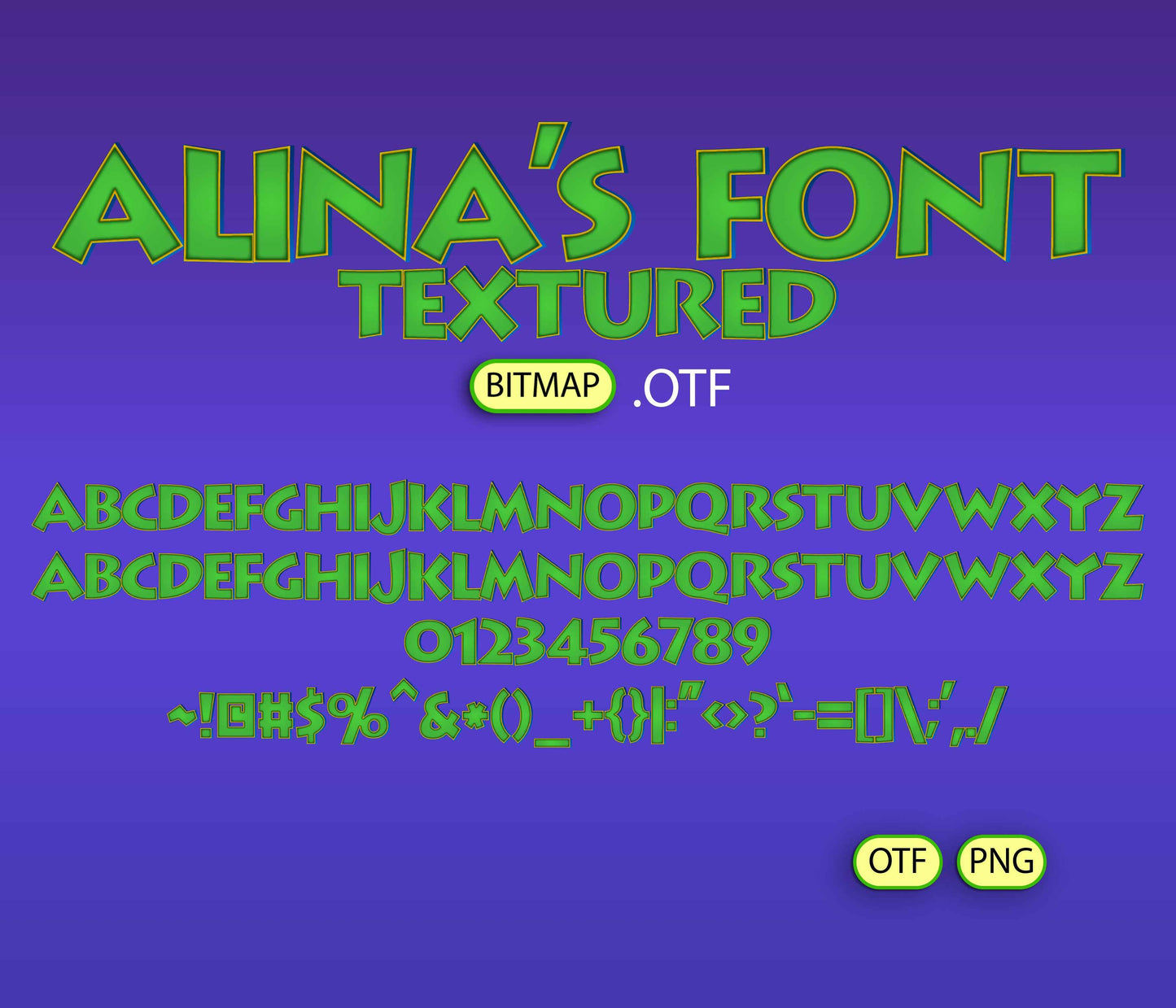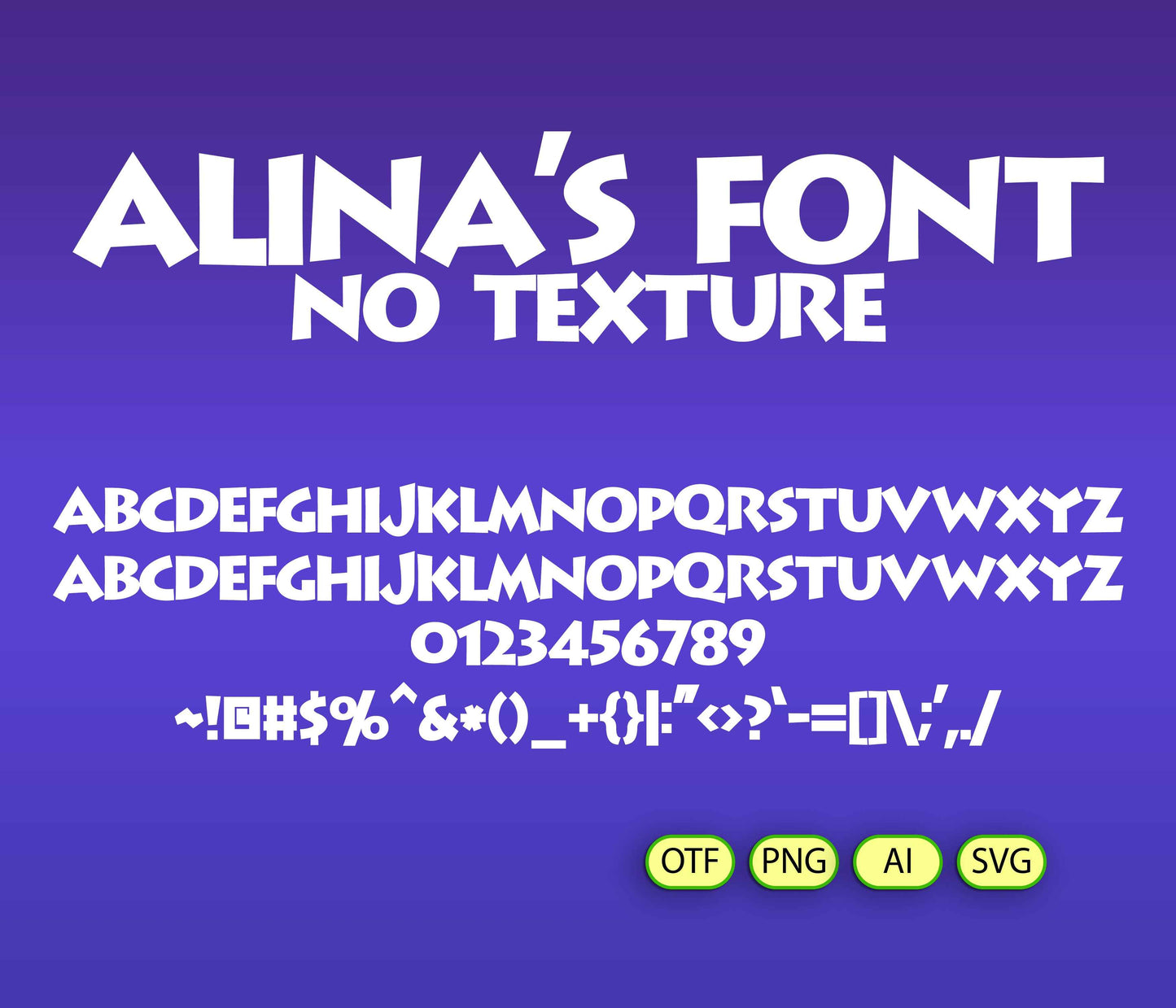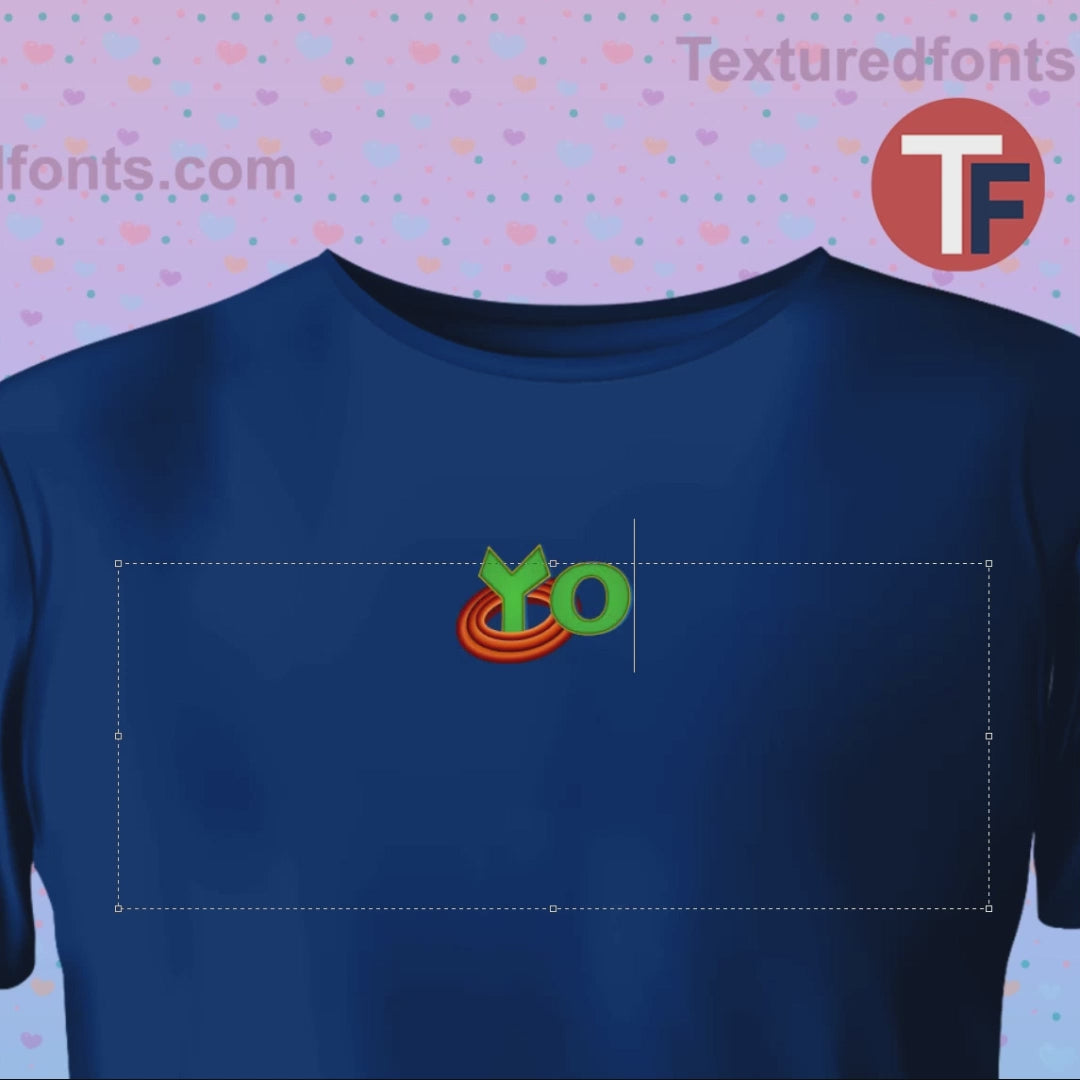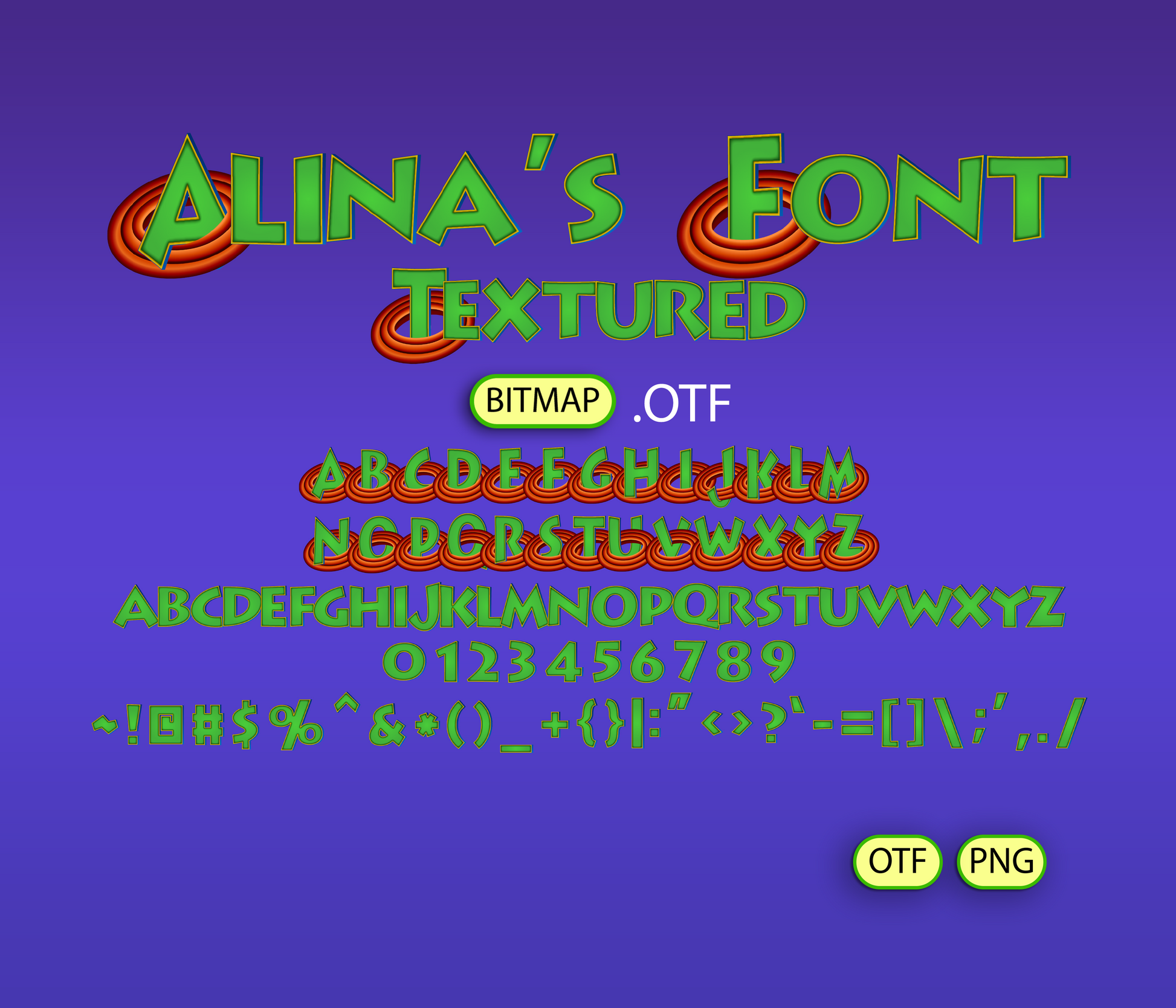
Cosmic Hoops Font Textured
Slam Dunk Font: Inspired by Cosmic Hoops
Slam dunk into the cosmos with our Slam Dunk font, a dynamic and bold typeface inspired by the legendary blend of basketball and interstellar adventure. Perfect for fans of the iconic movie franchise, this font captures the excitement, action, and whimsical clash between the world of sports and animated entertainment. Whether you're creating content for a sports blog, designing themed party invitations, or promoting a basketball tournament with a cosmic twist, our Slam Dunk font brings the thrill of the game and the allure of space exploration to your projects.
Optimized for Canva, the Slam Dunk font ensures that creators of all skill levels can easily integrate the energy and fun of the movies into their digital designs. This font is a versatile pick for anyone looking to convey messages of teamwork, competition, and intergalactic fun, ensuring your Slam Dunk-themed projects pop off the screen or page with vibrancy and spirit, from digital graphics to printed memorabilia.
To accommodate the versatile needs of our users, we've included a no-texture version of the Slam Dunk font, guaranteeing compatibility across all software and making it a flexible option for a variety of applications, whether online or in print. This adaptability allows the Slam Dunk font to be effortlessly incorporated into a wide range of design aesthetics, from promotional materials for sports events to fan-made content celebrating the beloved movie franchise.
Featuring a comprehensive character set and a user-friendly design, the Slam Dunk font is accessible to everyone, inviting users to channel the high-flying fun and adventurous spirit of Space Jam into their work. Whether you're paying tribute to the classic film, celebrating the newest installment, or simply combining your love for basketball and animation, our Slam Dunk font, complete with its no-texture variant, enhances your creations with the excitement of the court and the boundless imagination of space.